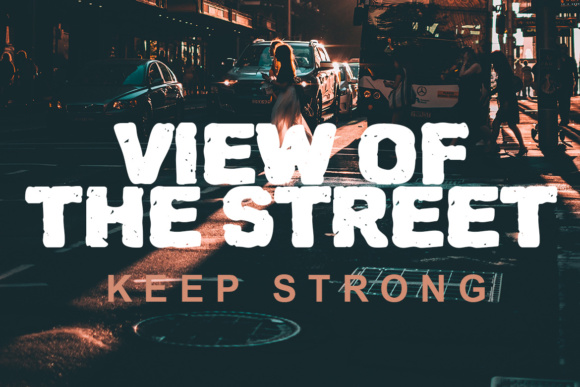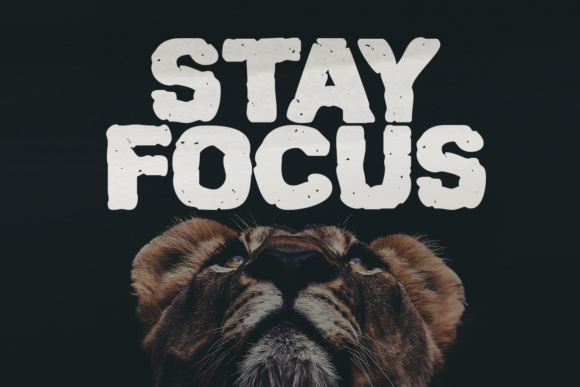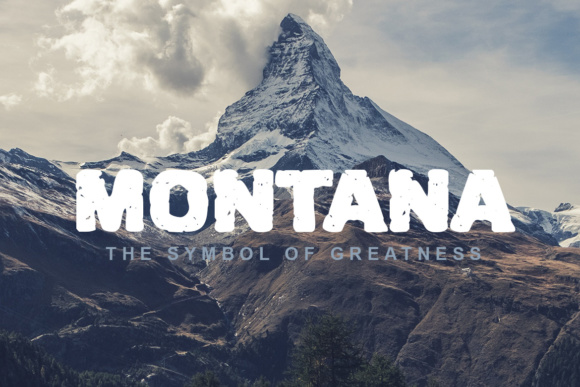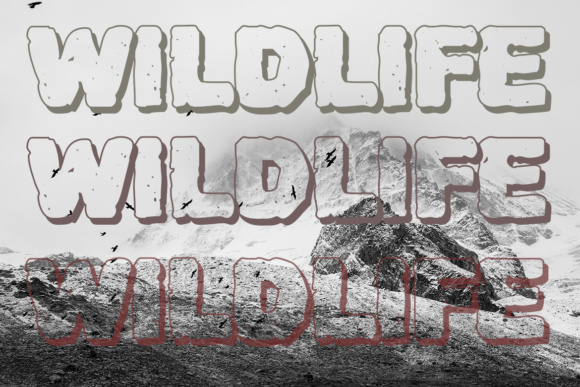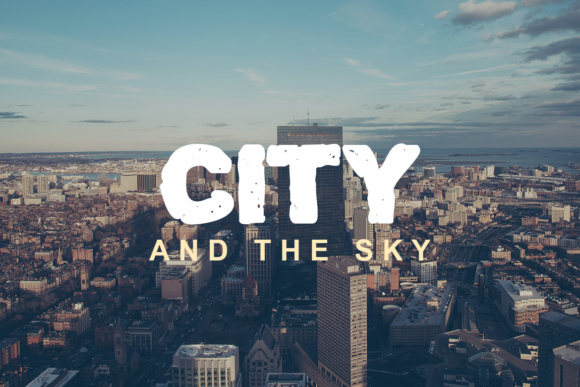
Introducing Bold Addict Font: A Strong and Solid Handmade Typeface
Are you tired of using generic, overused fonts in your designs? Look no further than the Bold Addict Font, a strong and solid handmade typeface that’s sure to make your projects stand out. In this article, we’ll dive into the world of Bold Addict, exploring its unique features, uses, and benefits for designers and crafters alike.
The Story Behind Bold Addict Font
Bold Addict Font is a carefully crafted typeface, designed with passion and attention to detail. Its creator, [Designer’s Name], aimed to create a font that exudes confidence, energy, and a sense of ruggedness. The result is a bold, eye-catching font that’s perfect for making a statement.
Key Features of Bold Addict Font
- Handmade with love: Bold Addict Font is a genuine handmade typeface, crafted with precision and care. Each letter has been carefully designed to ensure a unique, organic feel.
- Strong and solid: As its name suggests, Bold Addict Font is a robust and sturdy typeface, perfect for headlines, titles, and emphasis.
- Versatile: This font is suitable for a wide range of projects, from branding and advertising to packaging, signage, and more.
- Easy to read: Despite its bold nature, Bold Addict Font remains highly legible, even at smaller sizes.
What Makes Bold Addict Font Unique?
So, what sets Bold Addict Font apart from other typefaces on the market? Here are a few factors that contribute to its distinctiveness:
- Hand-drawn aesthetic: Bold Addict Font boasts a genuine hand-drawn look, complete with subtle imperfections and character.
- Customizable: With its extensive character set and alternate glyphs, Bold Addict Font offers plenty of opportunities for customization and creative experimentation.
- High-quality: This font has been meticulously crafted to ensure exceptional quality, with precise lines, curves, and spacing.
Using Bold Addict Font in Your Designs
Bold Addict Font is an incredibly versatile typeface, suitable for a wide range of applications. Here are some ideas to get you started:
- Headlines and titles: Use Bold Addict Font to create attention-grabbing headlines, titles, and headings that demand attention.
- Branding and logos: This font is perfect for creating bold, memorable logos and brand identities.
- Packaging and signage: Bold Addict Font is ideal for creating eye-catching packaging and signage that stands out in a crowd.
- Advertising and marketing: Use this font to add a bold, confident touch to your advertising and marketing materials.
Tips and Tricks for Working with Bold Addict Font
To get the most out of Bold Addict Font, here are some expert tips and tricks:
- Experiment with sizes and colors: Don’t be afraid to try out different sizes and colors to find the perfect combination for your design.
- Mix and match with other fonts: Bold Addict Font pairs well with a variety of other typefaces. Try combining it with a sans-serif or script font for added visual interest.
- Pay attention to spacing and kerning: Make sure to adjust the spacing and kerning to ensure optimal readability and aesthetics.
| Font Name | Bold Addict Font |
| Author | Lettersiro Co. |
In conclusion, Bold Addict Font is a strong, solid handmade typeface that’s perfect for designers and crafters looking to add a bold touch to their projects. With its unique features, versatility, and high-quality design, this font is sure to become a staple in your design toolkit. So why wait? Try Bold Addict Font today and take your designs to the next level!